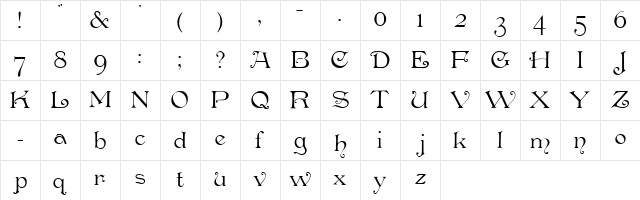
Penshurst Roman
Penshurst Family
Penshurst Roman
Design Context for Penshurst
Penshurst is a composed and adaptable typeface that performs quietly and consistently across a wide range of design contexts.